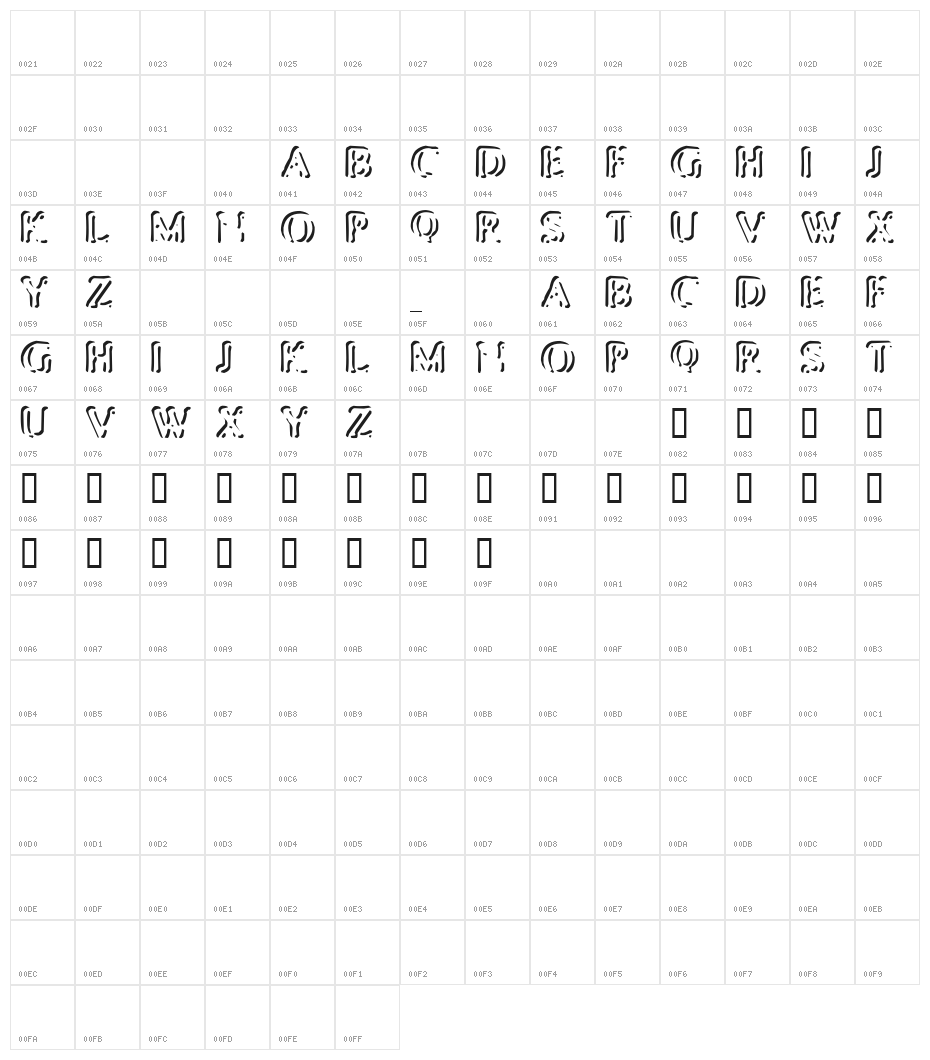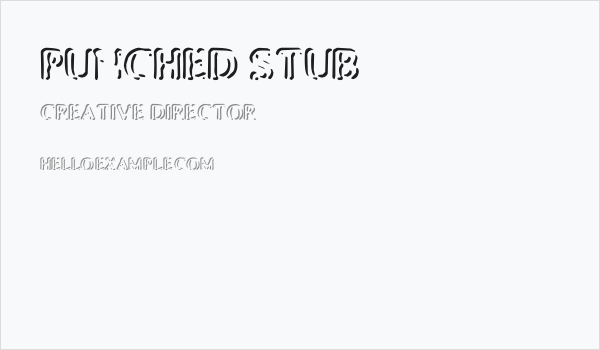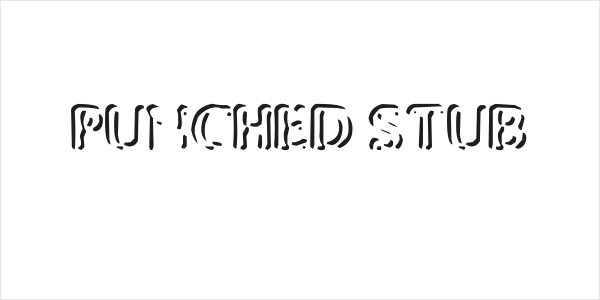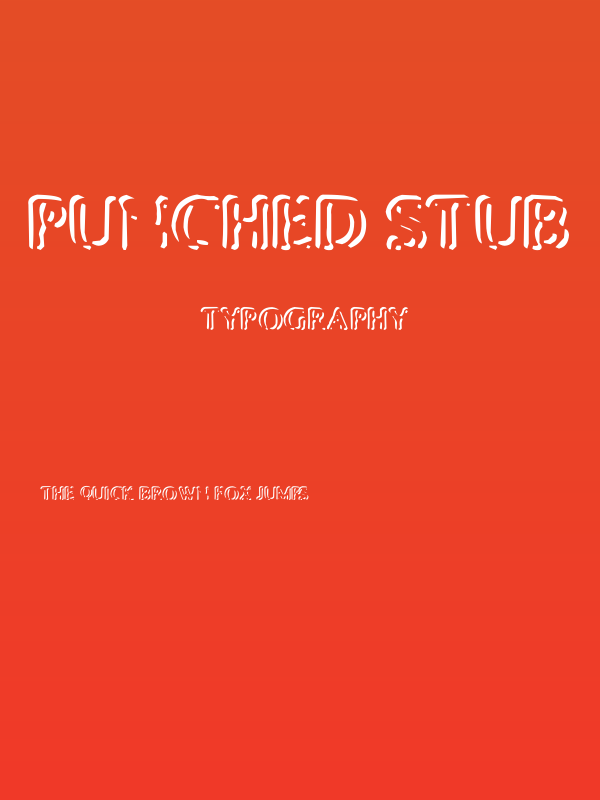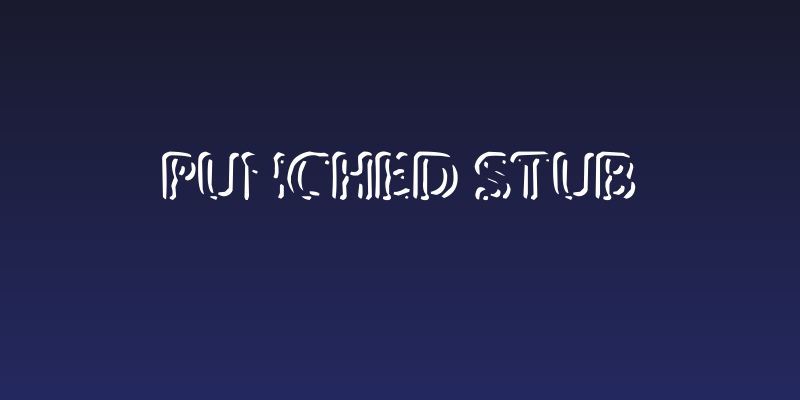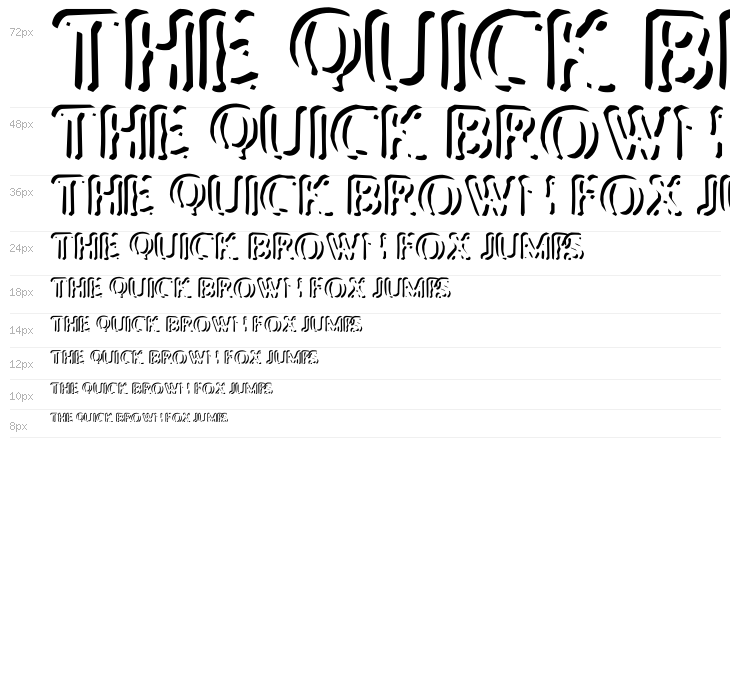
Punched Stub Font
Punched Stub Description
This font features a unique, industrial design with a stencil-like appearance. Each character is crafted with a series of punched-out sections, creating a rugged and mechanical aesthetic. The bold, geometric shapes are interrupted by circular and linear cutouts, giving the font a distinctive, utilitarian feel. The uppercase letters are particularly striking, with their strong, angular forms and consistent spacing. This font is ideal for projects that require a bold statement or an industrial touch, such as branding for machinery, construction, or technology sectors. Its decorative nature makes it suitable for headlines and logos, where its eye-catching design can be fully appreciated.
| Overall Style | Industrial, Decorative |
| Proposed Projects | Ideal for branding in machinery, construction, or technology sectors, as well as for headlines and logos. |